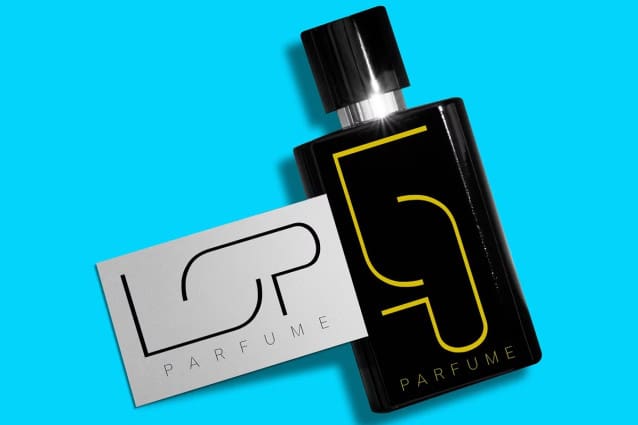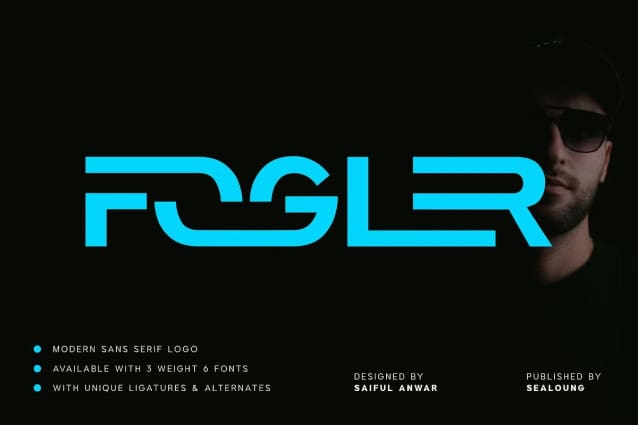
Fogler Font
Fogler Font is a Corporate Logo Sans Serif Font that is modern, well-balanced, and minimalist with a unique and iconic design. This sans serif font allows for easy combination and variation using ligatures and alternates, making it perfect for creating distinctive shapes in seconds. Ideal for branding projects, logos, posters, social media posts, advertisements, product packaging, designs, labels, photography, watermarks, invitations, stationery, and other projects, it offers high legibility.